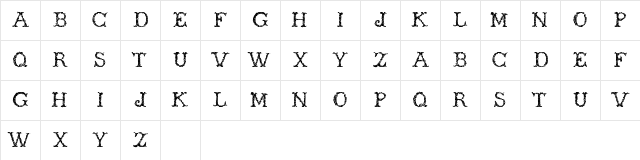
Wickers Regular Free Font
Wickers Regular
Foundry: Xerographer Fonts
Designer: Max Infeld Xerographer Fonts
Design Context for Wickers
Wickers is a composed and adaptable typeface that performs quietly and consistently across a wide range of design contexts.